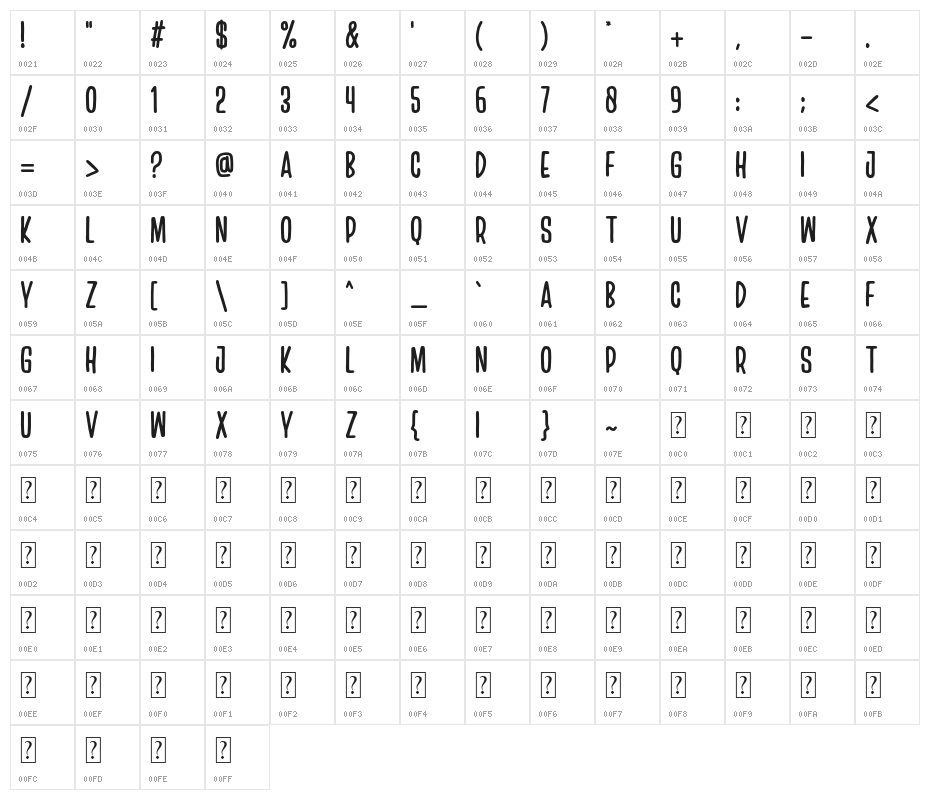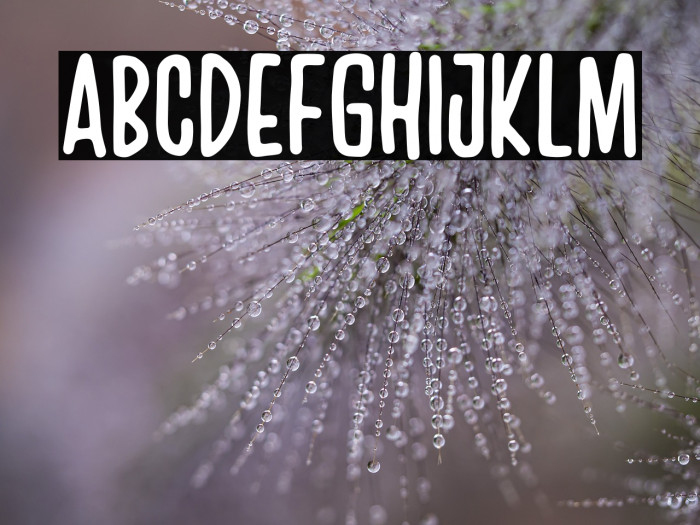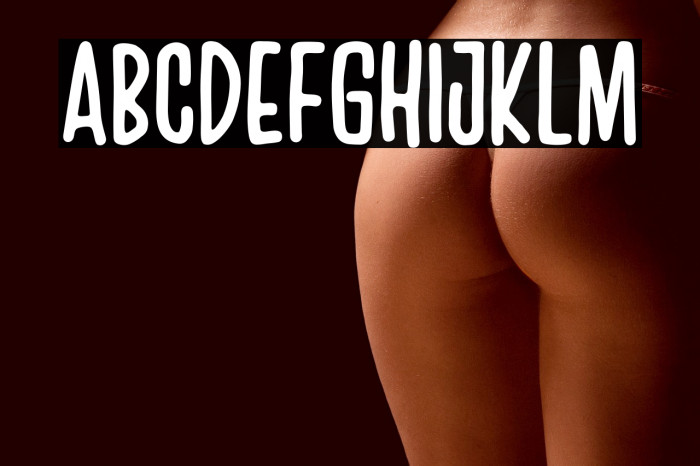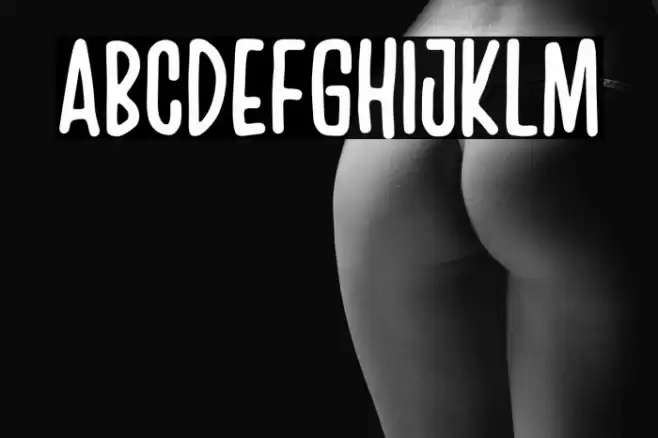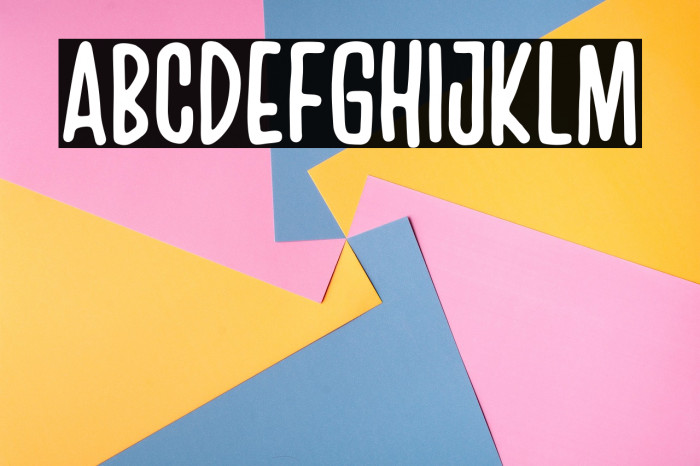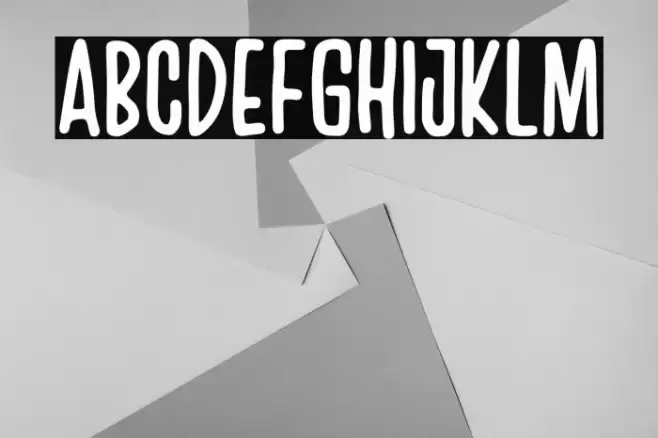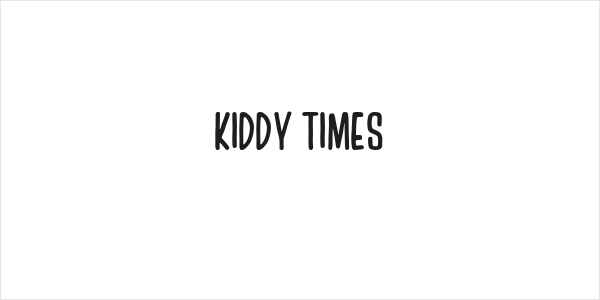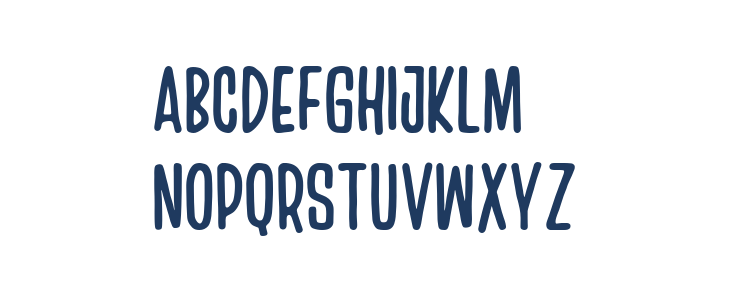
Kiddy Times Font
Kiddy Times Description
This playful and rounded font exudes a youthful and energetic vibe, making it perfect for projects aimed at children or those seeking a fun and informal tone. The characters are bold and slightly condensed, with a consistent stroke width that gives it a uniform appearance. The rounded edges and smooth curves contribute to its friendly and approachable style. The font includes a full set of uppercase and lowercase letters, numbers, and a variety of special characters, ensuring versatility in its use. Its design is both simple and engaging, making it suitable for a wide range of creative applications.
| Proposed Projects | Ideal for children's books, toy packaging, playful branding, and educational materials. |